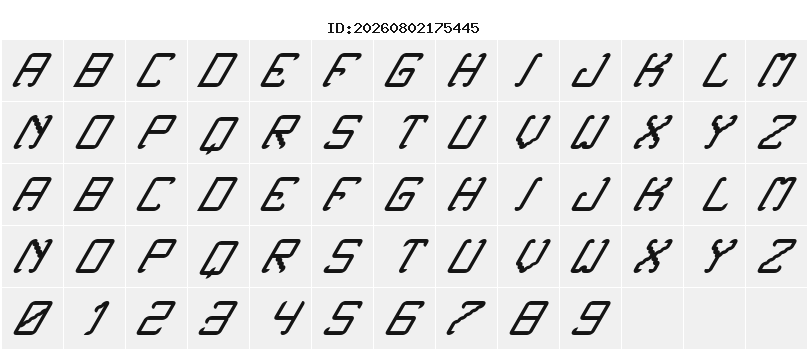
• Font Name: Noxtrey Auf tfb extra
• Font Style: Italique
Noxtrey Auf tfb extra.ttf is a modern, elegant sans-serif font designed for ultimate readability and visual harmony. Perfect for branding, headlines, web design, and print materials.